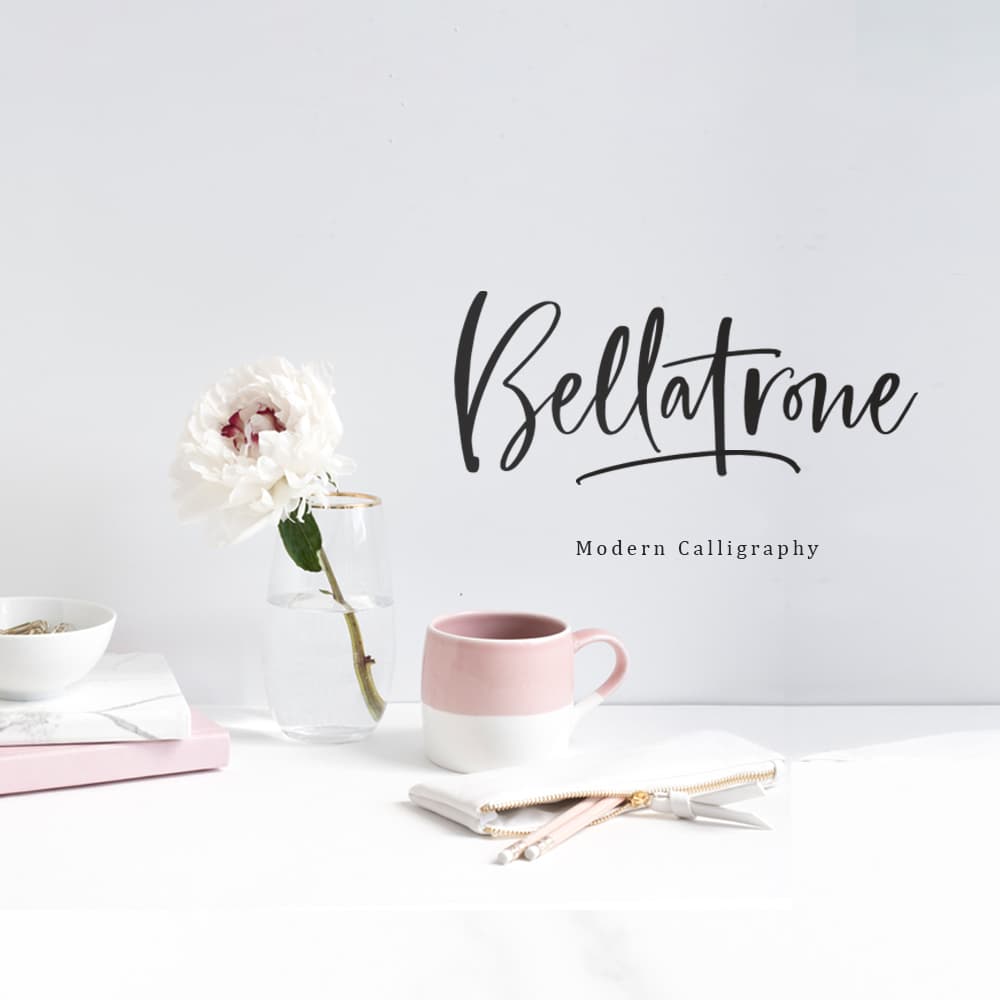
<p><strong><em>Bellatrone - Modern Script</em></strong> is a script that contain lowercase, uppercase, symbol, and also support multi language. There's a lot ligatures in this font. Bellatrone Script is a font that you can use to make a logo for branding, beautiful fashion design, suitable for wedding invitation, or handwritten quote. Also already PUA Encoded.</p>